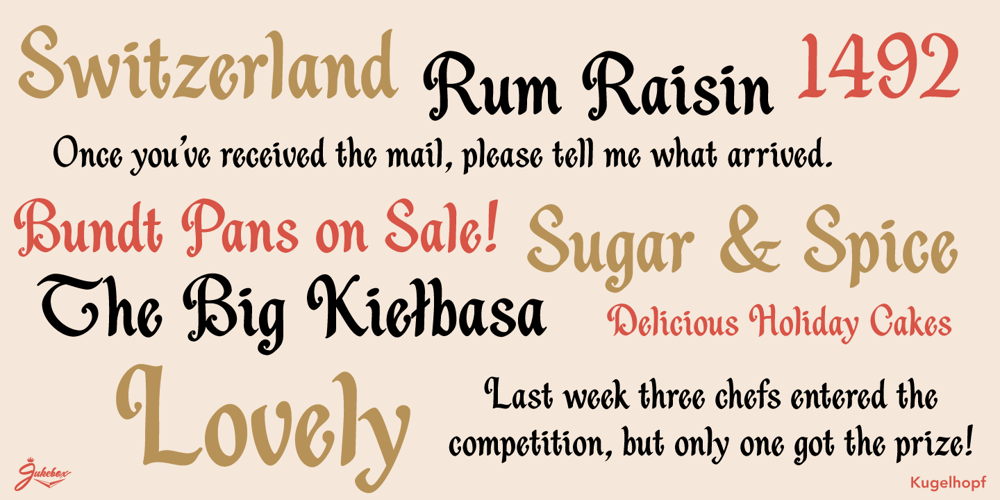
Kugelhopf JF Font Family was designed by Jason Anthony Walcott and published by Jukebox Collection. Kugelhopf JF contains 1 styles and family package options. Kugelhopf is a calligraphic style font with an old-world Blackletter feel to it. Full of charm and flair, this friendly script font will lend a sense of childlike magic to any design. Perfect for themes relating to holidays, fairy tales, storybooks and even Renaissance designs, Kugelhopf was inspired by a hand-lettered sample in an old book about sign painting. It can also be used for cards, invitations and scrapbooking as well! ‘Kugelhopf’ is a German & Austrian holiday yeast cake from which our modern western Bundt cake was derived. It has a particular shape that is said to be inspired by Turkish turbans. Jukebox fonts are available in OpenType format and downloadable packages contain both .otf and .ttf versions of the font. They are compatible on both Mac and Windows. All fonts contain basic OpenType features as well as support for Latin-based and most Eastern European languages.